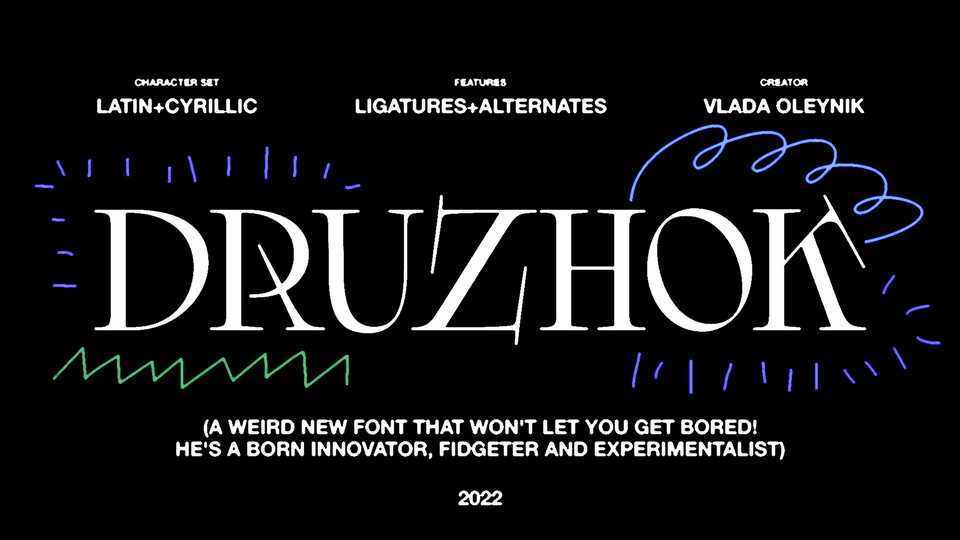
Download Druzhok font, an experimental display typeface with many alternative characters and ligatures. Druzhok will not let you get bored! He is a born adventurer, fidget and experimenter.
Designer: Vlada Oleynik